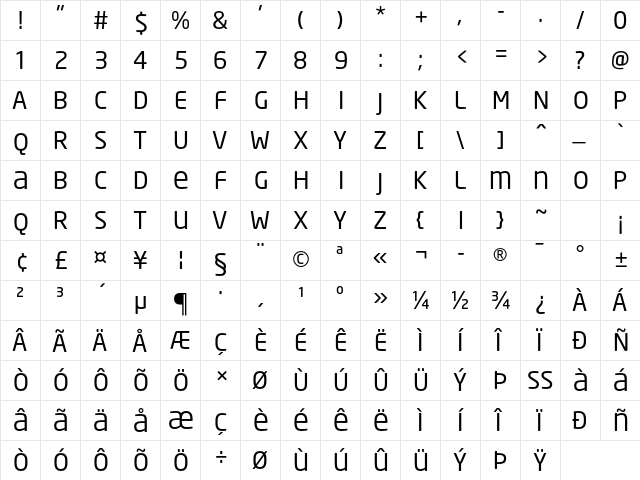
Neo Sans Unicase Regular
Design Context for Neo Sans Unicase Typeface
Neo Sans Unicase offers clean, dependable letterforms without strong stylistic allegiance, making it a practical choice for designers who need flexibility.